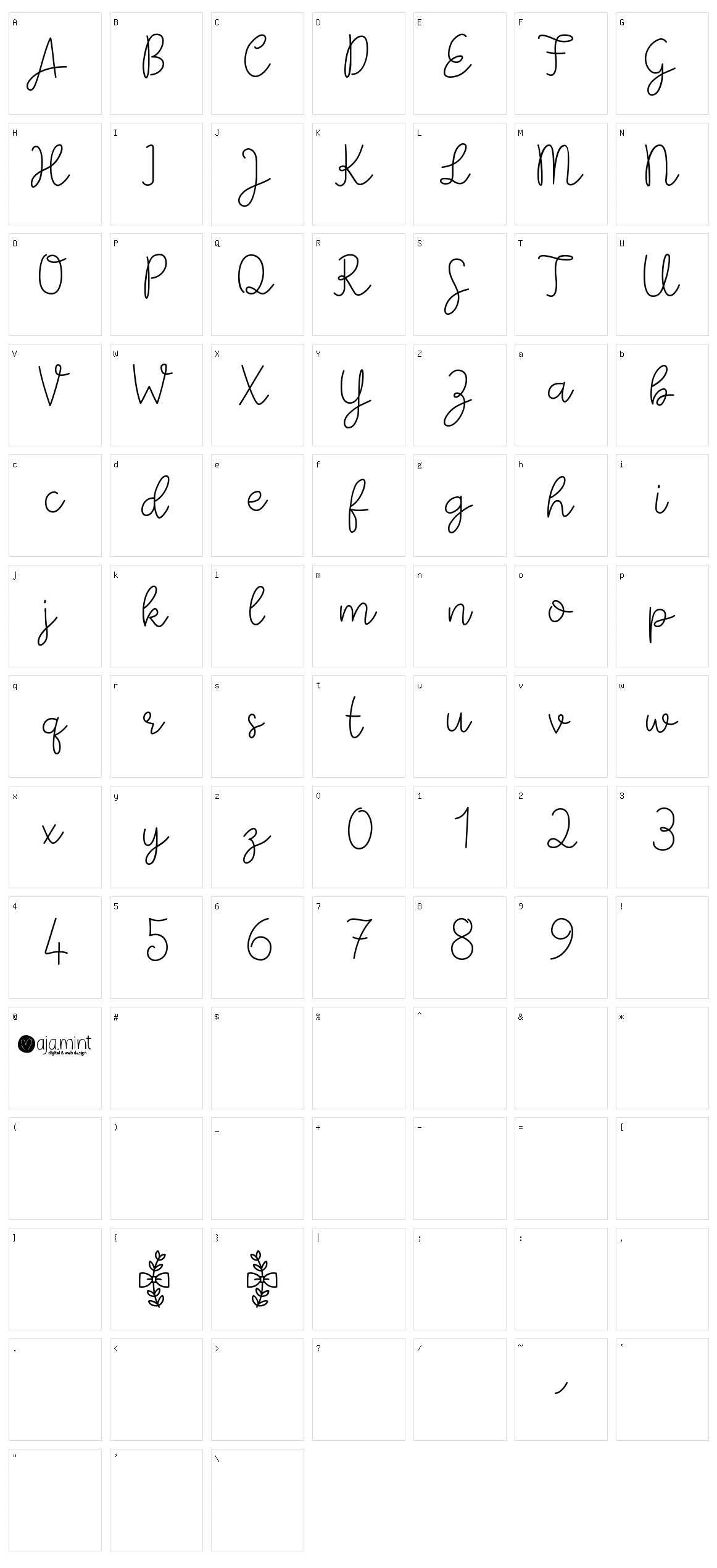
Paper Bow
Description: The free font Paper Bow is carefully designed by maja.mint, showcasing a thoughtful balance of creativity and usability and falls under the Script font style. When you download the ZIP file, it contains only 336.96 KB of font files, making it lightweight and quick to download. Please review the license details below to understand permitted usage and distribution rights. If license information is not available, we recommend using this font for personal projects only or contacting the author directly for commercial usage permissions.